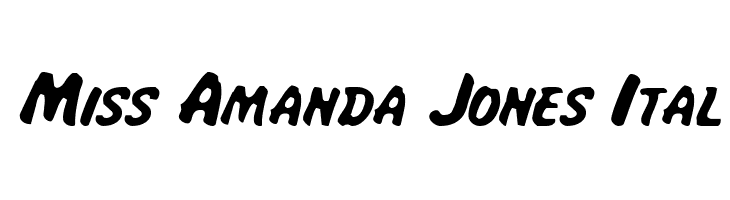
• Miss Amalia Italic schriftart
A flowing, elegant script font with a sophisticated, italic style.
• Miss Amalia Italic schriftart
An elegant, flowing script font with an italic slant and ornate flourishes.
• Miss Amanda ItalExp schriftart
A bold, playful handwritten font with thick, rounded strokes and a dynamic slant.
• Miss Amanda Jones schriftart
A bold, playful font with thick, rounded strokes and a hand-drawn appearance.
• Miss Amanda Jones Cond schriftart
A bold, playful font with a hand-drawn, whimsical style.
• Miss Amanda Jones Exp schriftart
A bold, playful, and hand-drawn style font with a whimsical appearance.
• Miss Amanda Jones Ital schriftart
A bold, playful handwritten font with a slight slant.
• Miss Amanda Shadow schriftart
A playful, bold font with a shadow effect and rounded, hand-drawn characters.
• Miss Amanda Shadow Ital schriftart
A bold, shadowed font with rounded, italicized characters for a playful look.
• Miss Amanda Shadow ItalExp schriftart
A bold, playful font with a shadow effect and rounded, italicized characters.